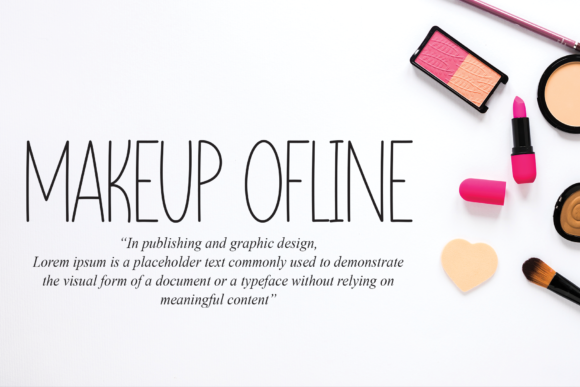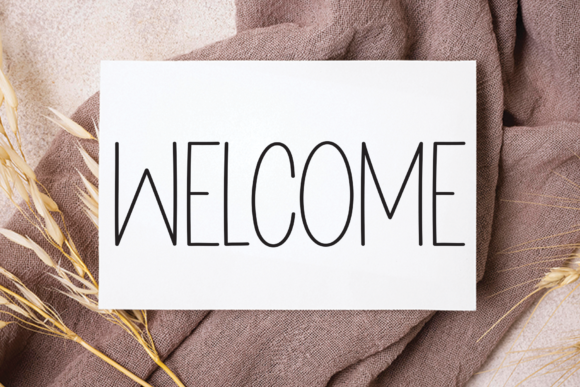
Wonderfull Font
db-ku.com - Script & Handwritten -- Wonderfull is a clean and simple script font, featuring letters that are perfect for wall displays, wedding invitations, social media post logos,